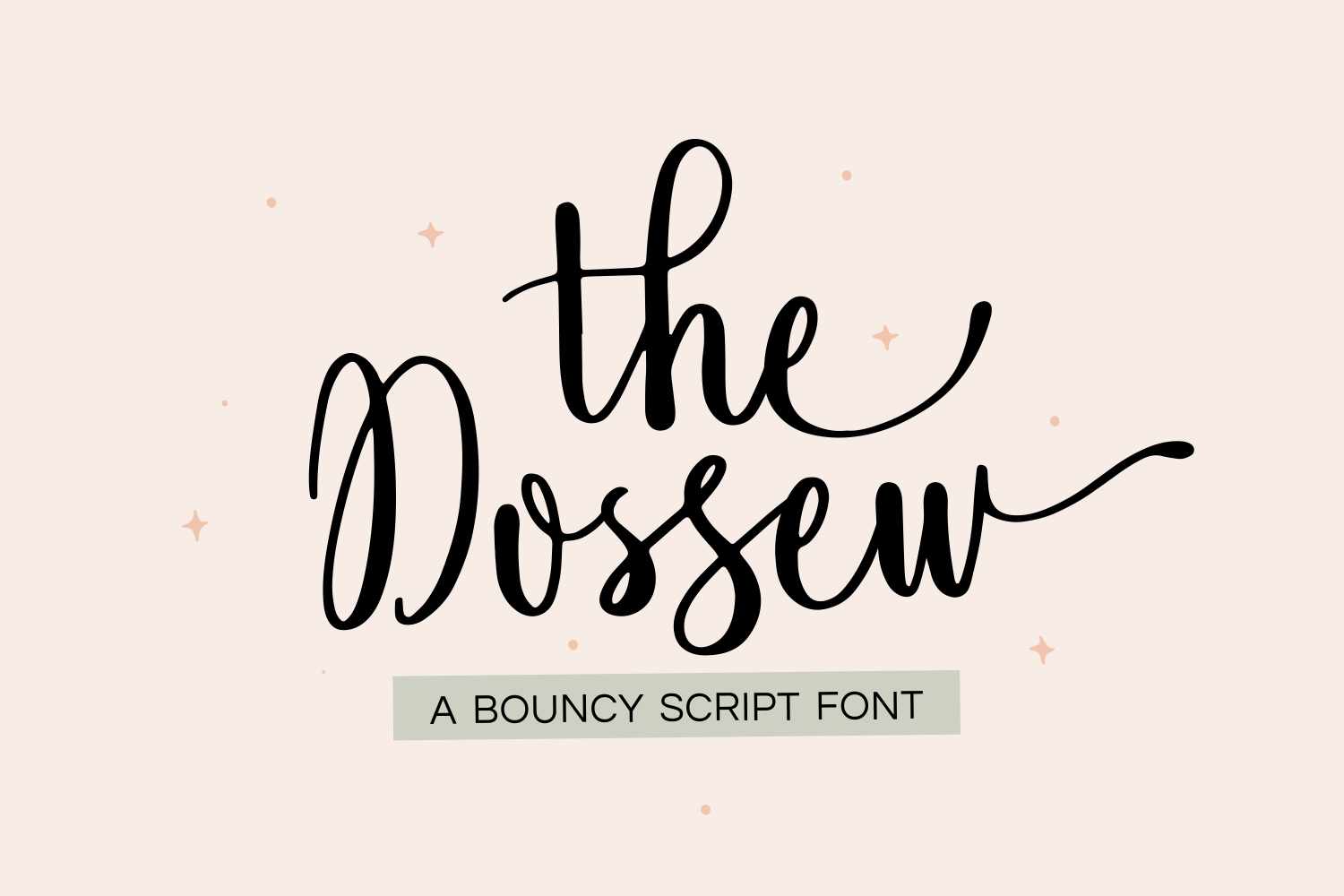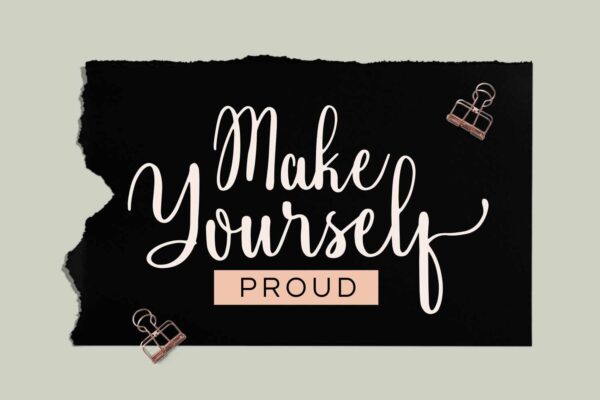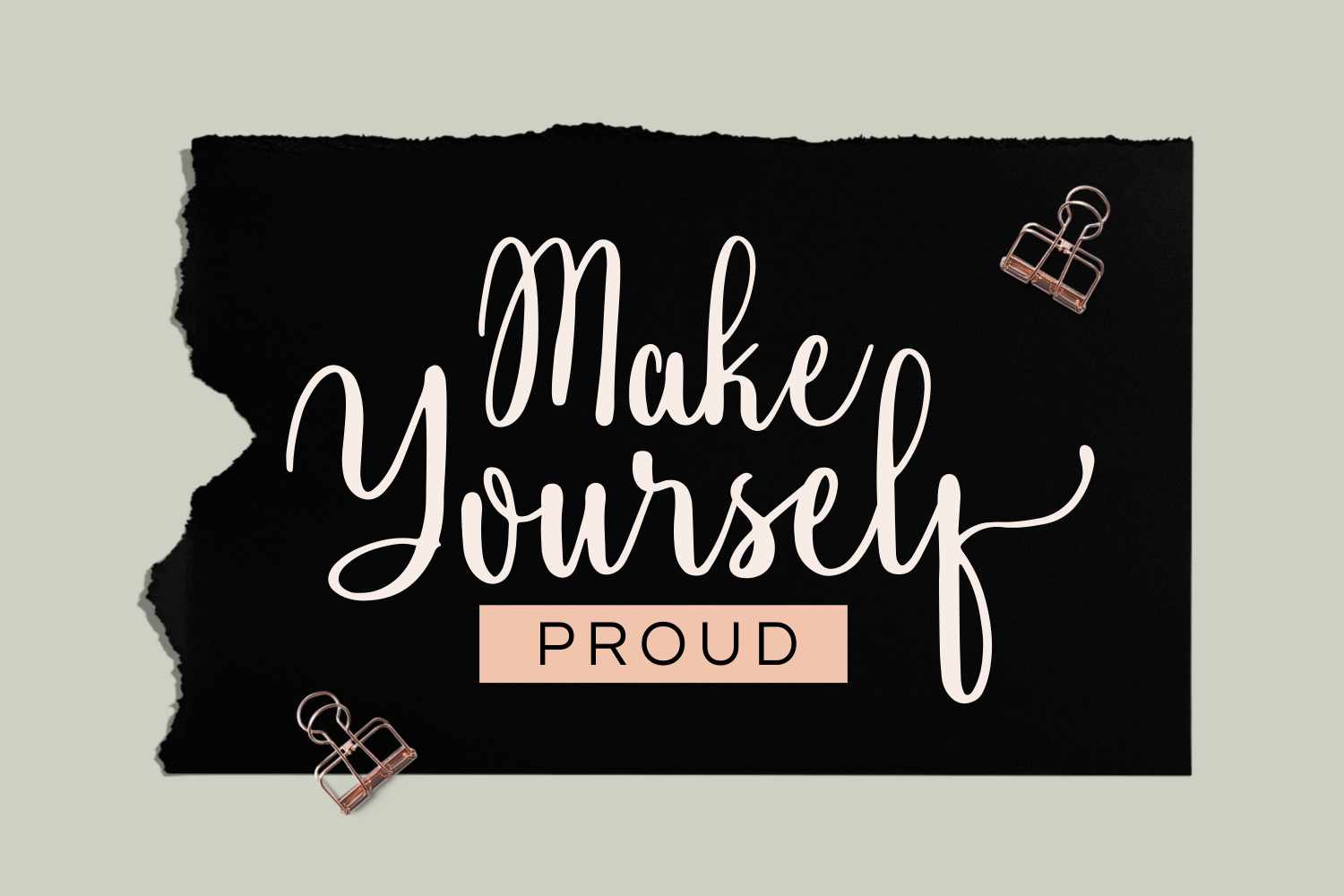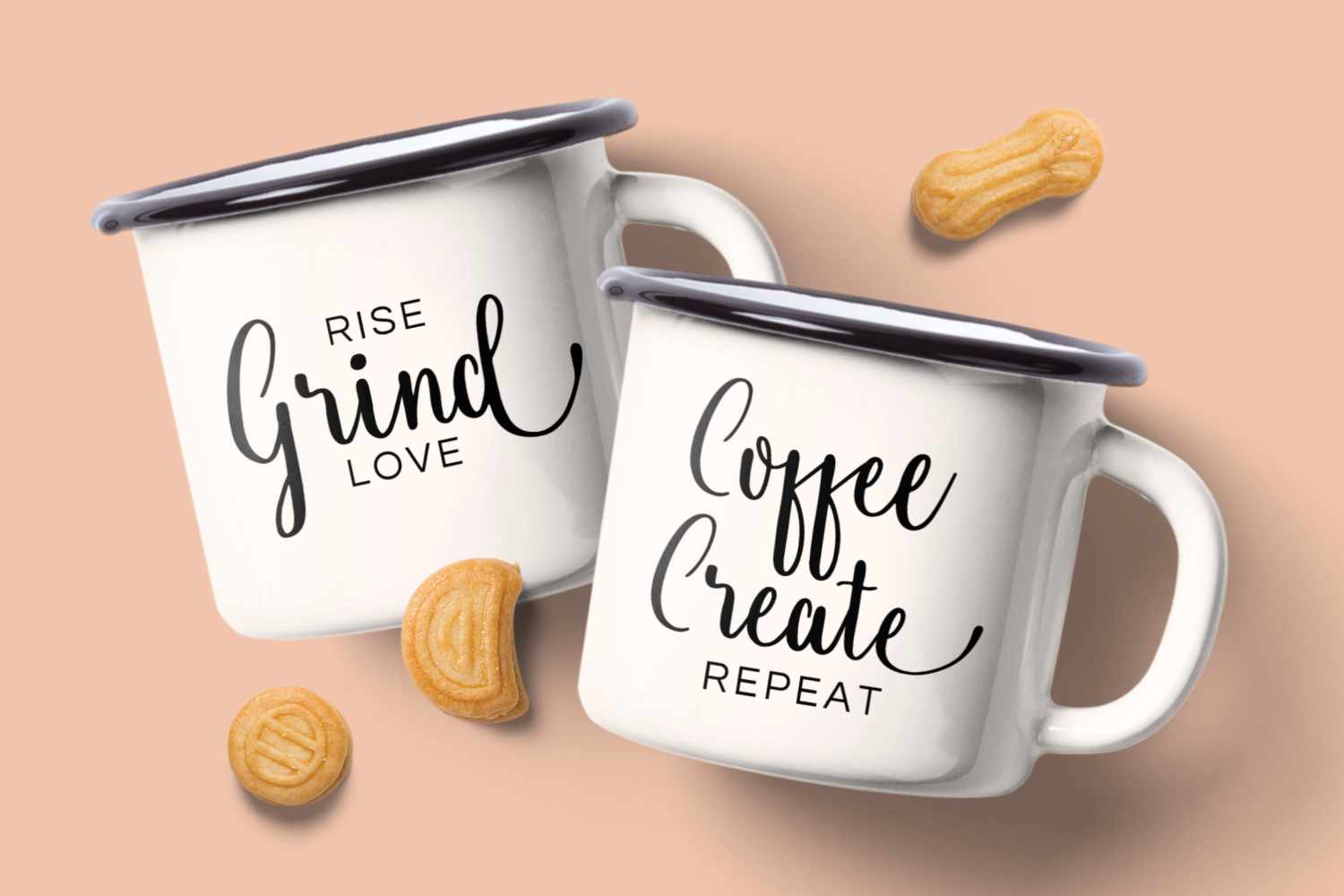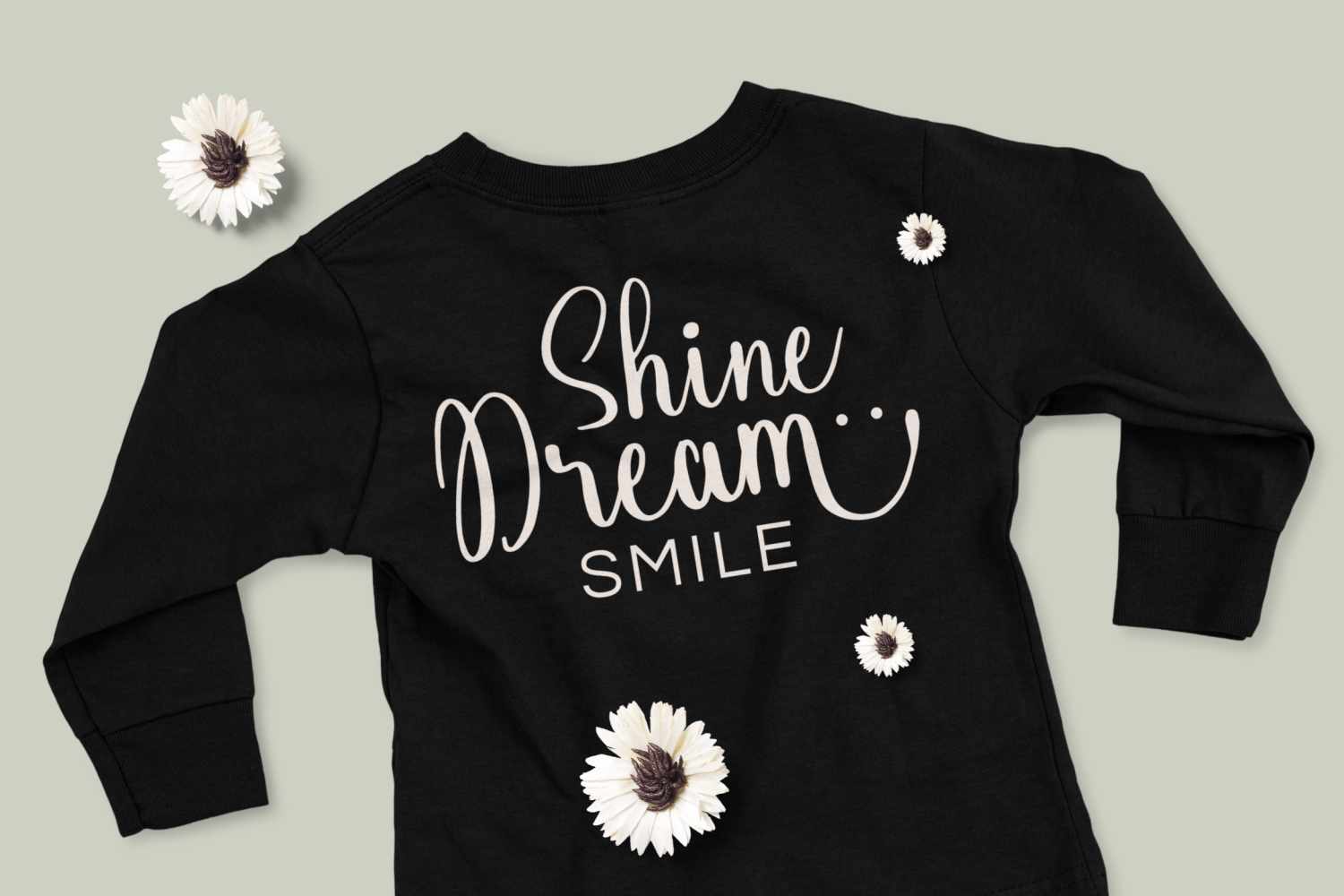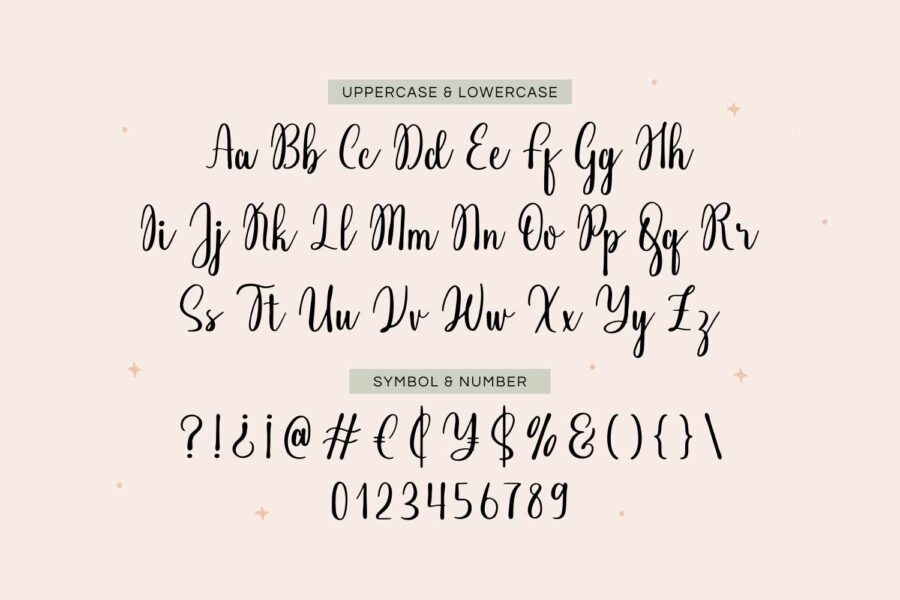
The Dossew
The Dossew is a charming and playful bouncy script font that brings a delightful handcrafted feel to your designs. With its flowing strokes and natural rhythm, this font is perfect for adding a warm and whimsical touch to quotes, greeting cards, product packaging, and branding. The elegant swashes and soft curves enhance its friendly personality while maintaining readability.
Featuring a complete set of uppercase and lowercase letters, numbers, punctuation, ligatures, and stylistic alternates, The Dossew is versatile and fun to use. Whether you’re creating prints, apparel, or digital products, this font adds a cheerful flair that feels both modern and approachable.